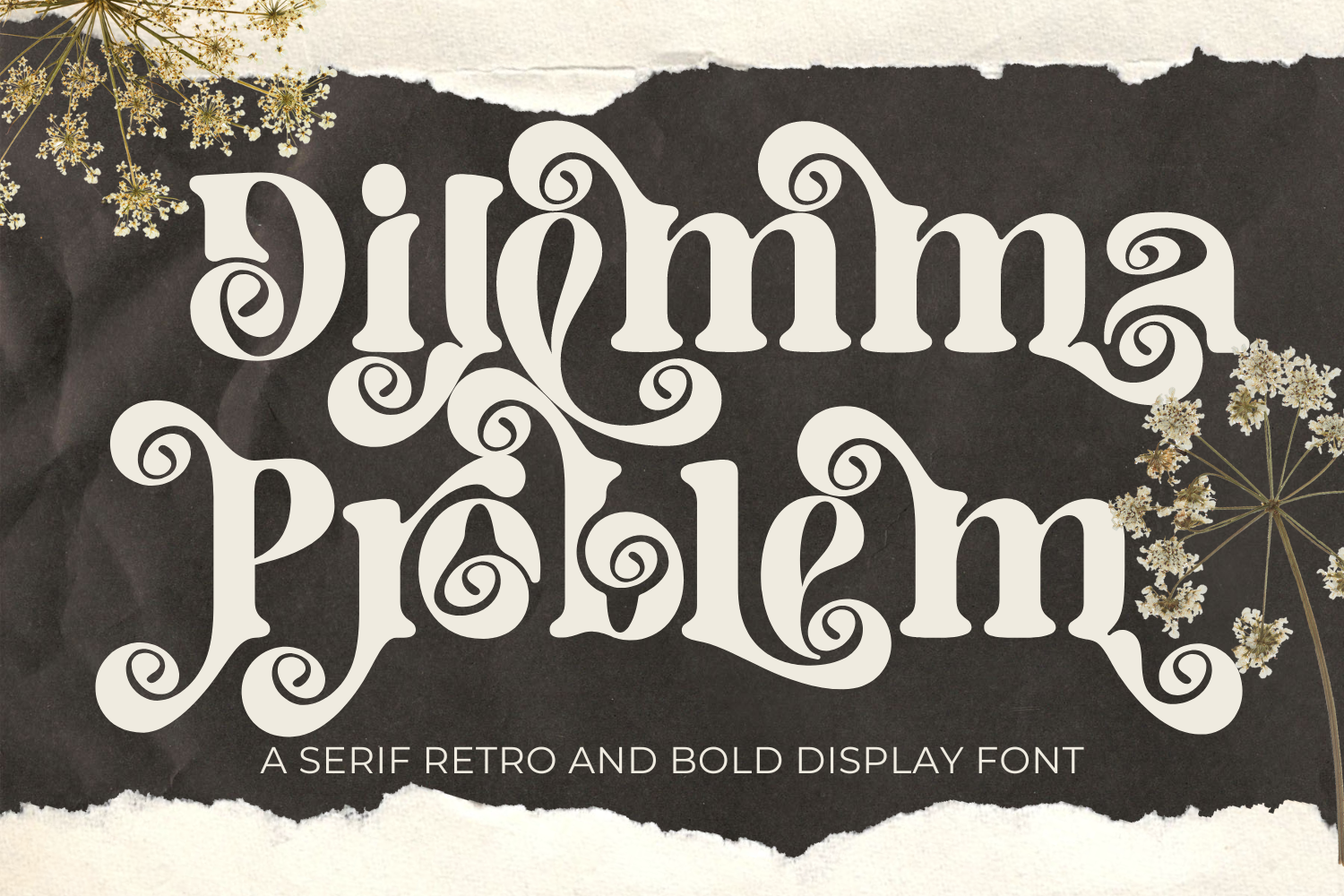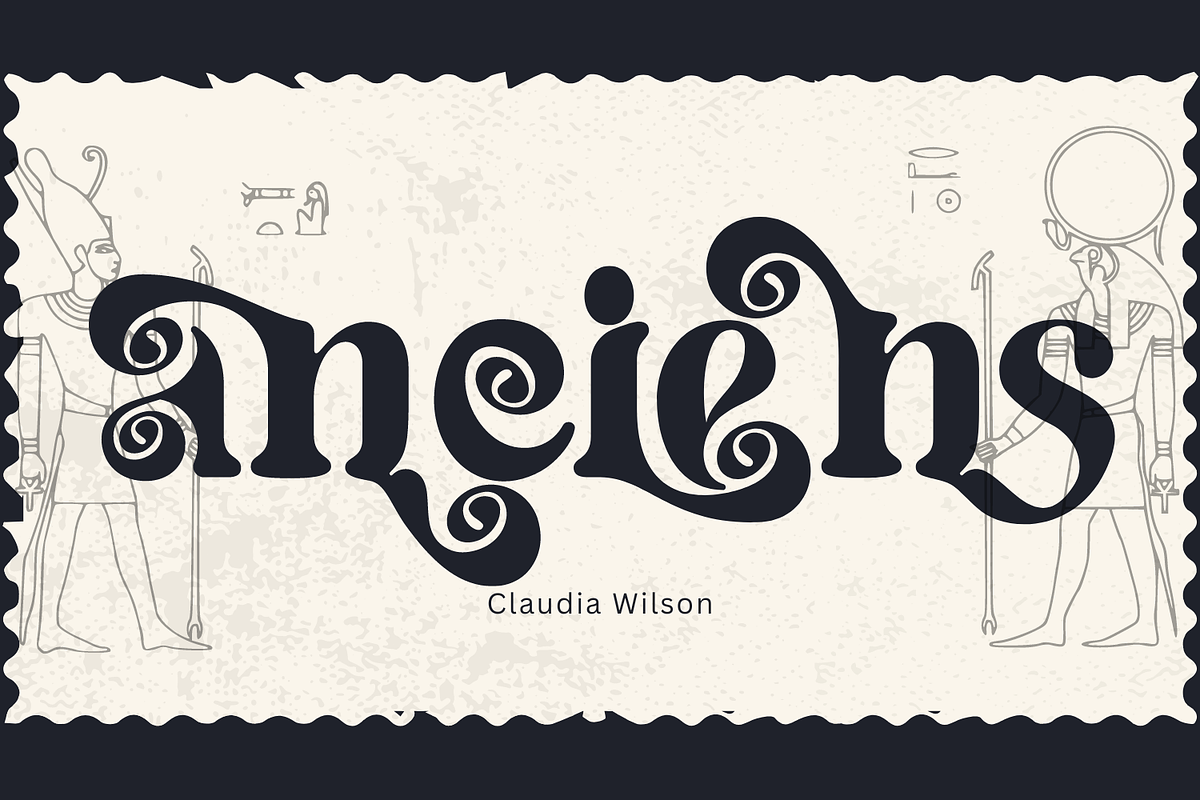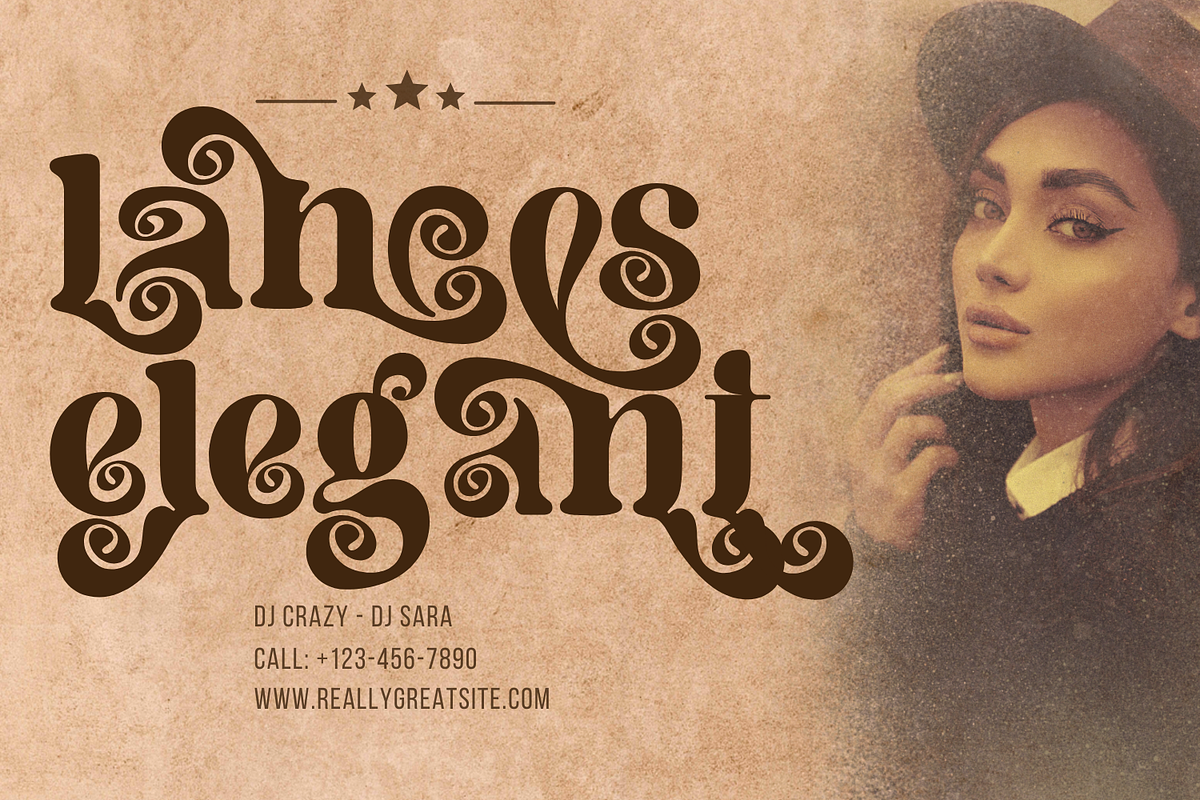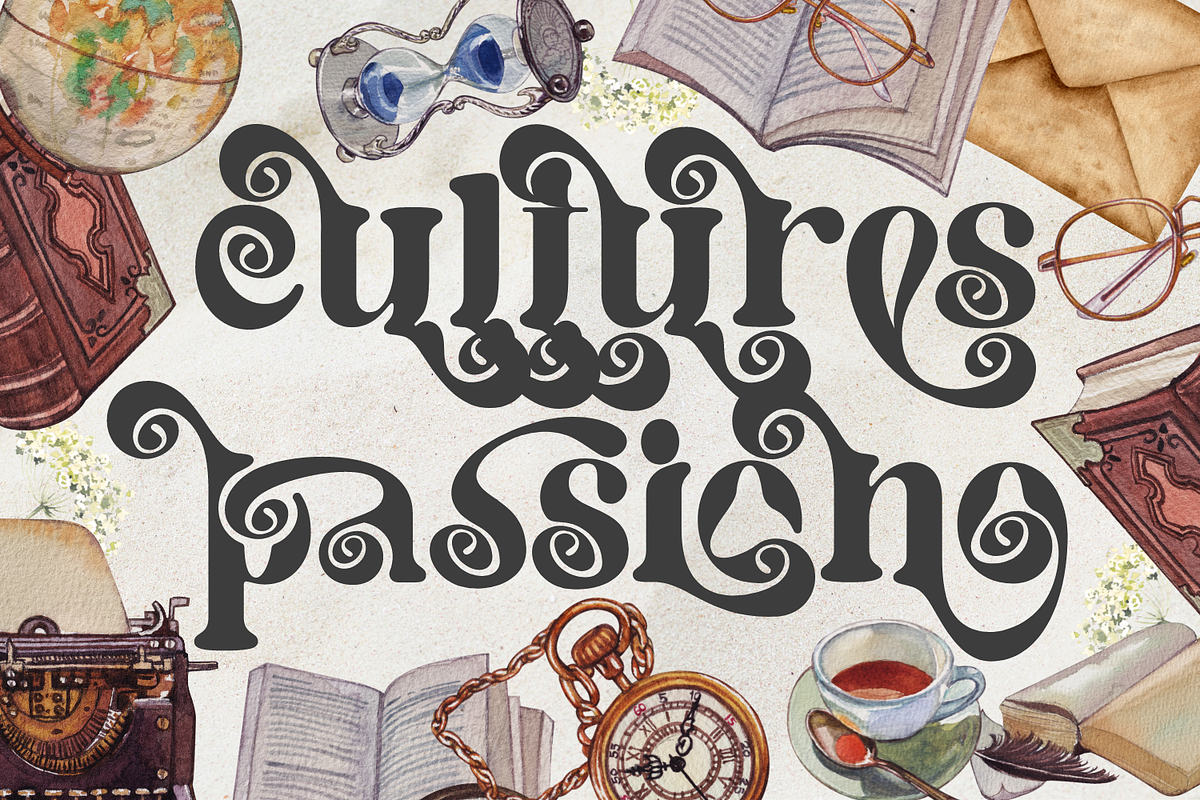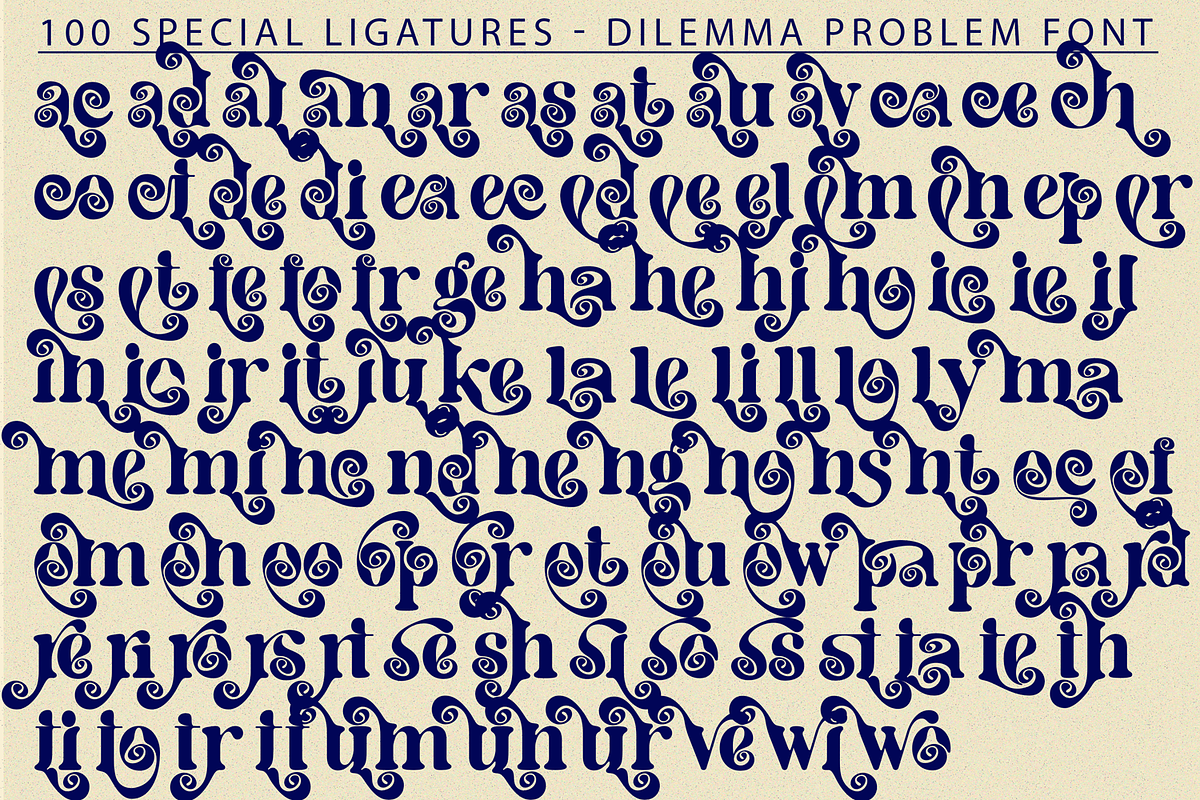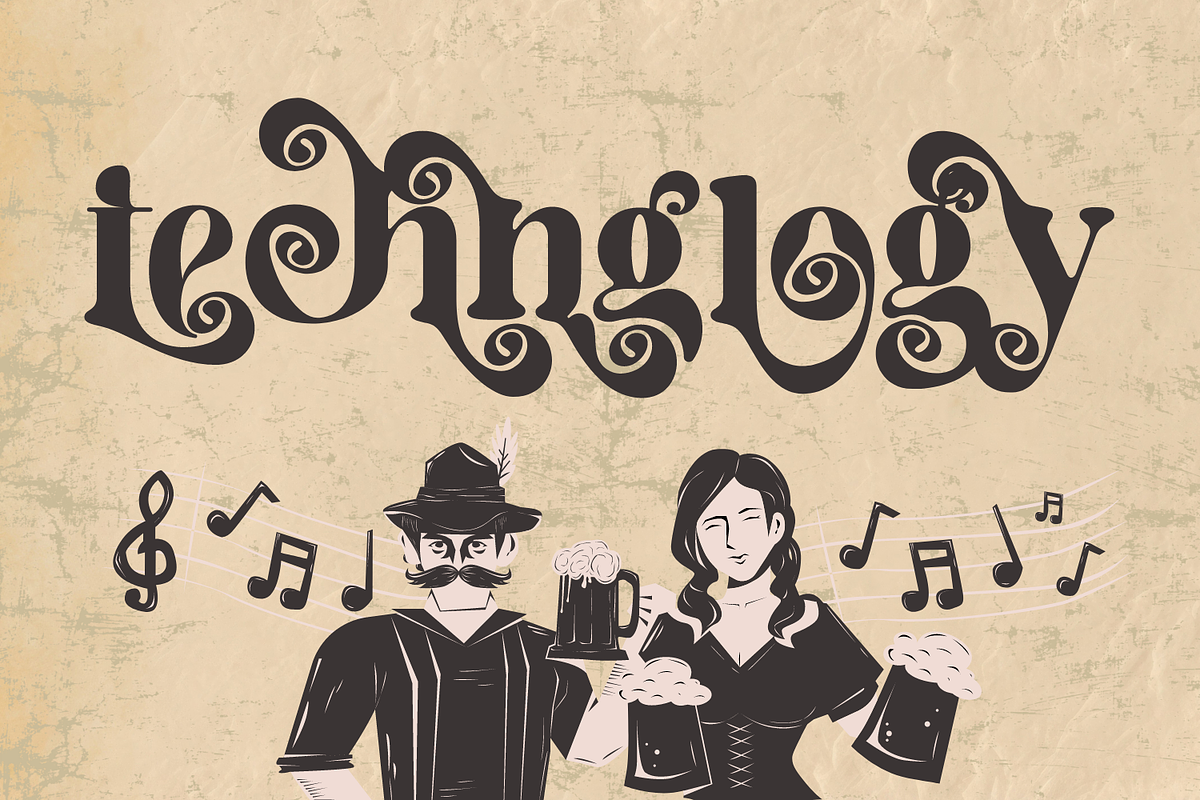
Dilemma Problem Font
Dilemma Problem Font is a bold retro font with a lot of alternate glyphs. The stylistic alternates and ligatures make this font event more unique and stands from the crowd, with 70s vibe. This font is perfectly match for groovy retro and vintage design. This font is also usable in a wide range of works such as logos, covers, posters, quotes, product packaging, merchandise, social media and much more! Use this font and let your creativity vibing!!
Dilemma Problem was built with OpenType features and includes 100 ligatures, alternate, numbers, punctuation, and it also supports other languages.
ac ad al an ar as at au av be ca ce ch co ct de di ea ec ed ee el em en ep er es et fe fo fr ge ha he hi ho ie ic il in io ir is it ju ke la le li ll lo ly ma me mi nc nd ne ng no nt ns oc of om on oo op or ot ou ow pa pr ra rd re ri ro rs rt se sh si so ss st ta te th ti to tr tt um un ur ve wi wo
This font also included full set of:
- Special Ligatures